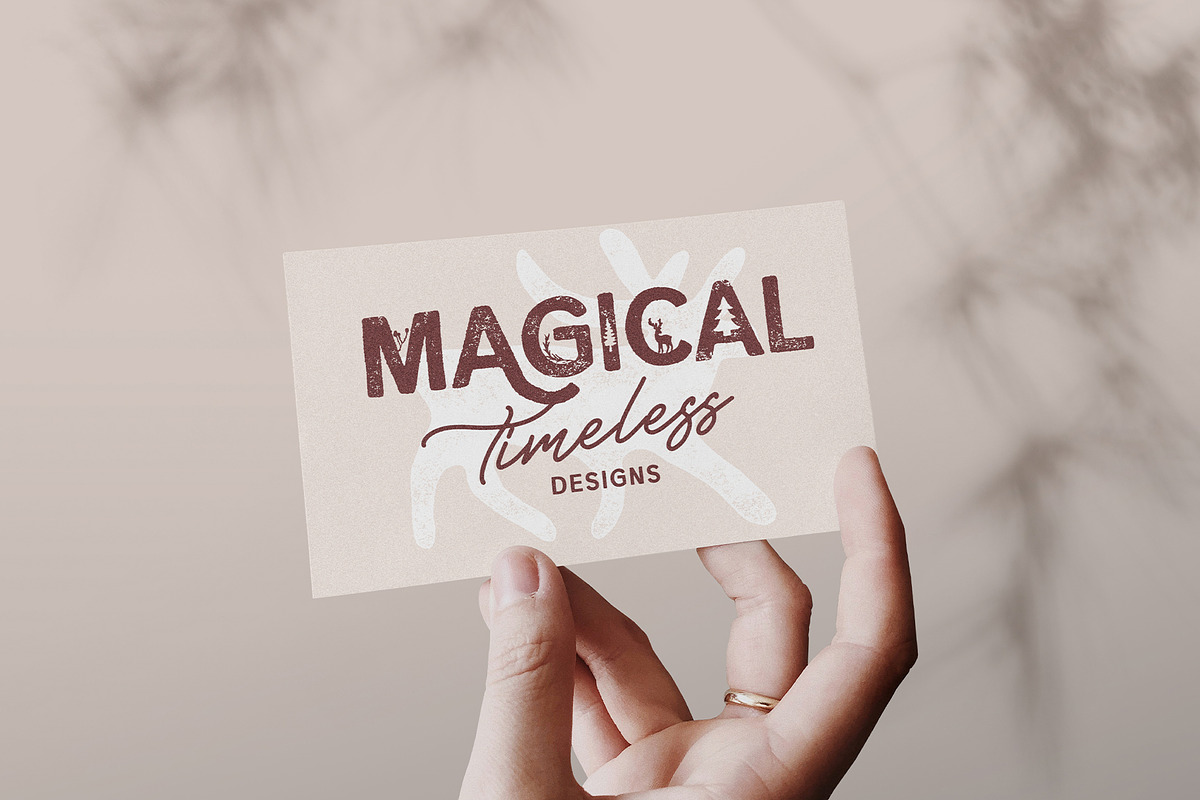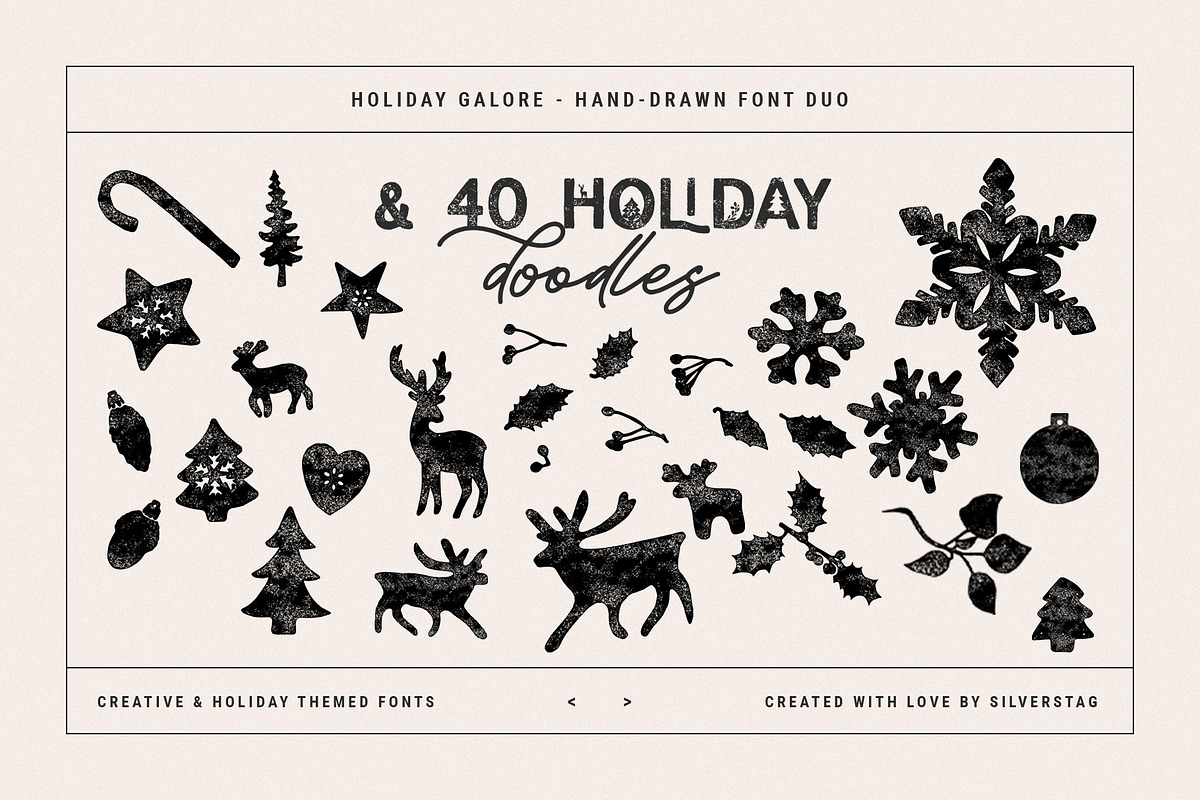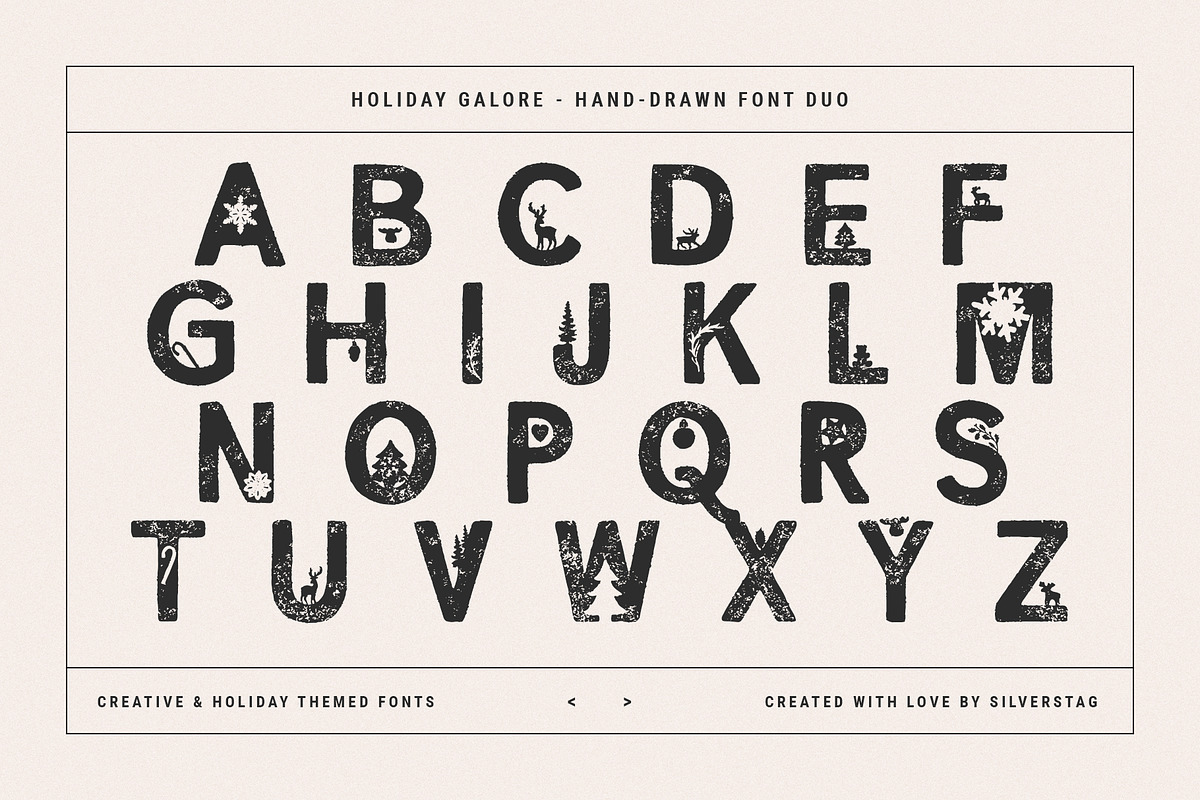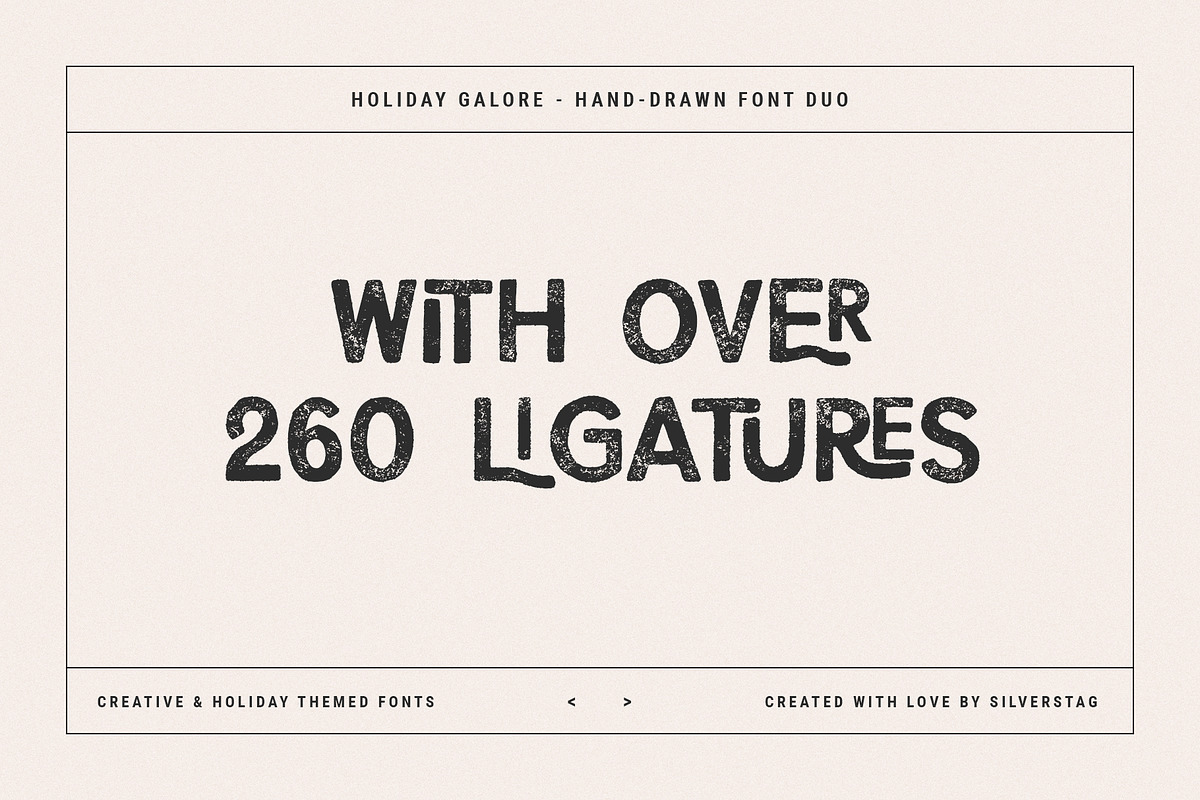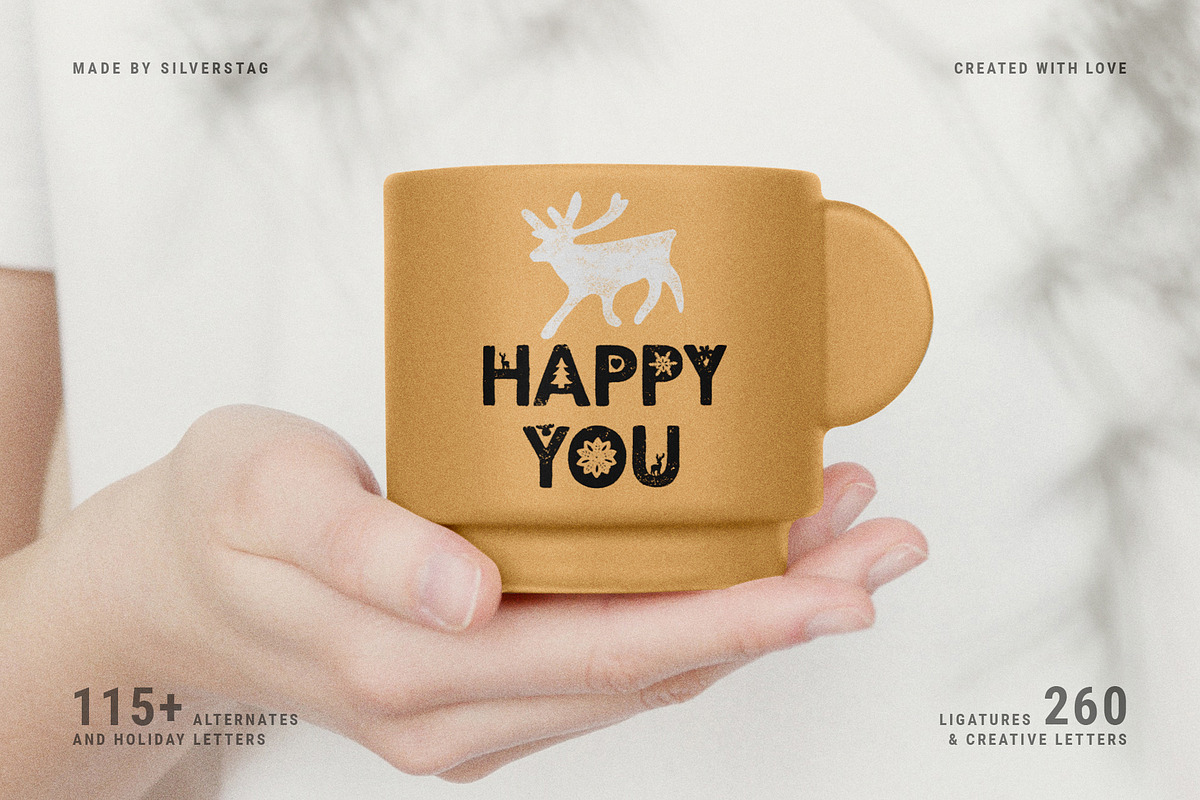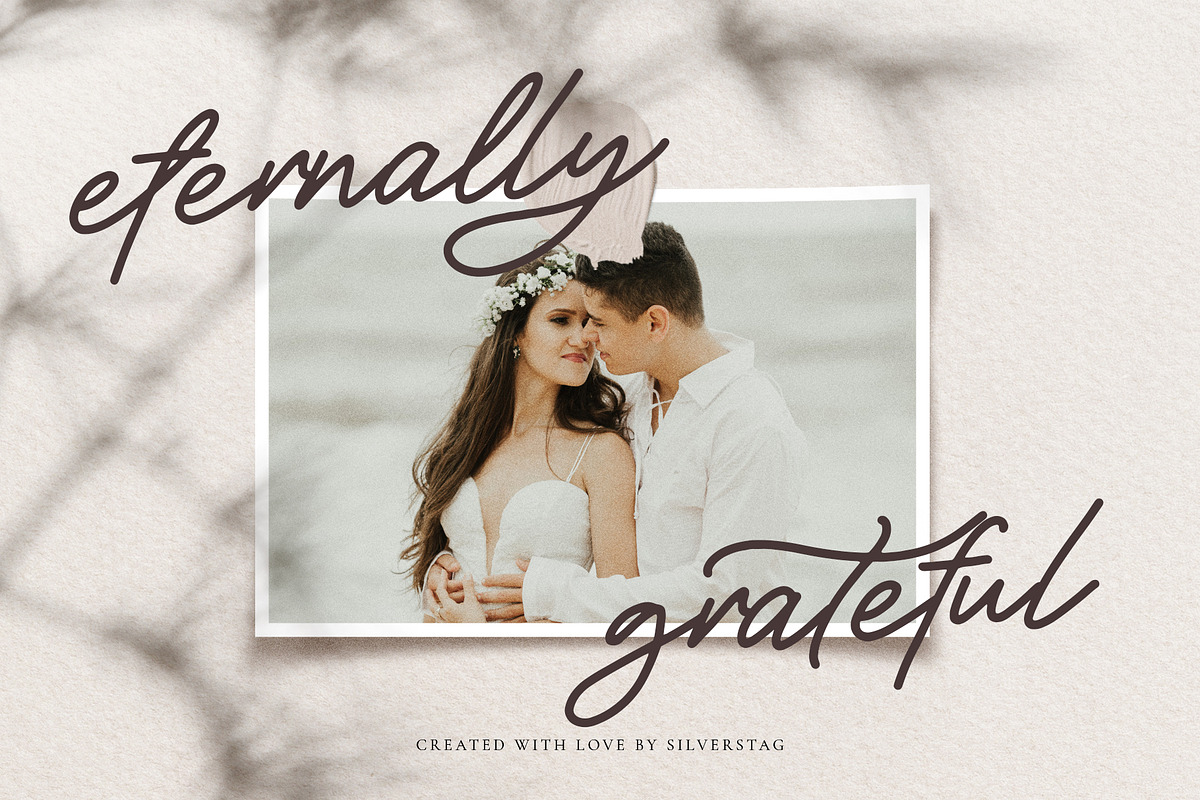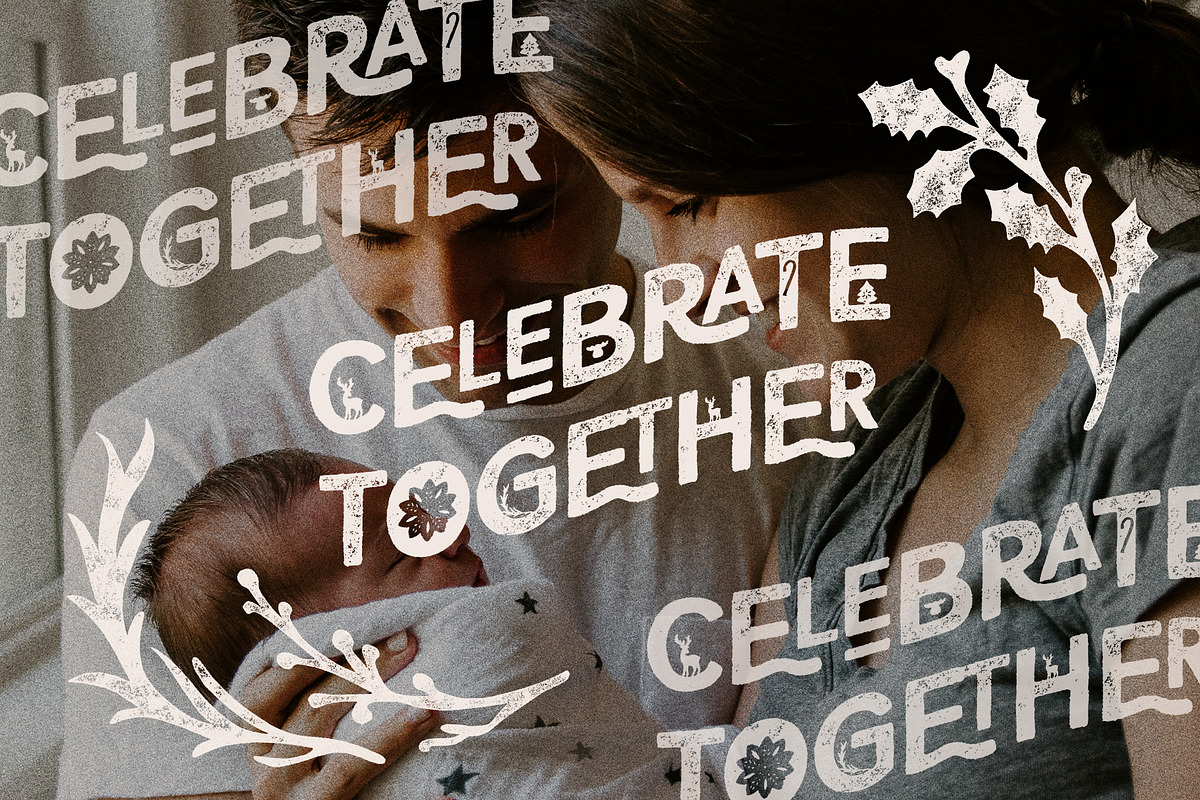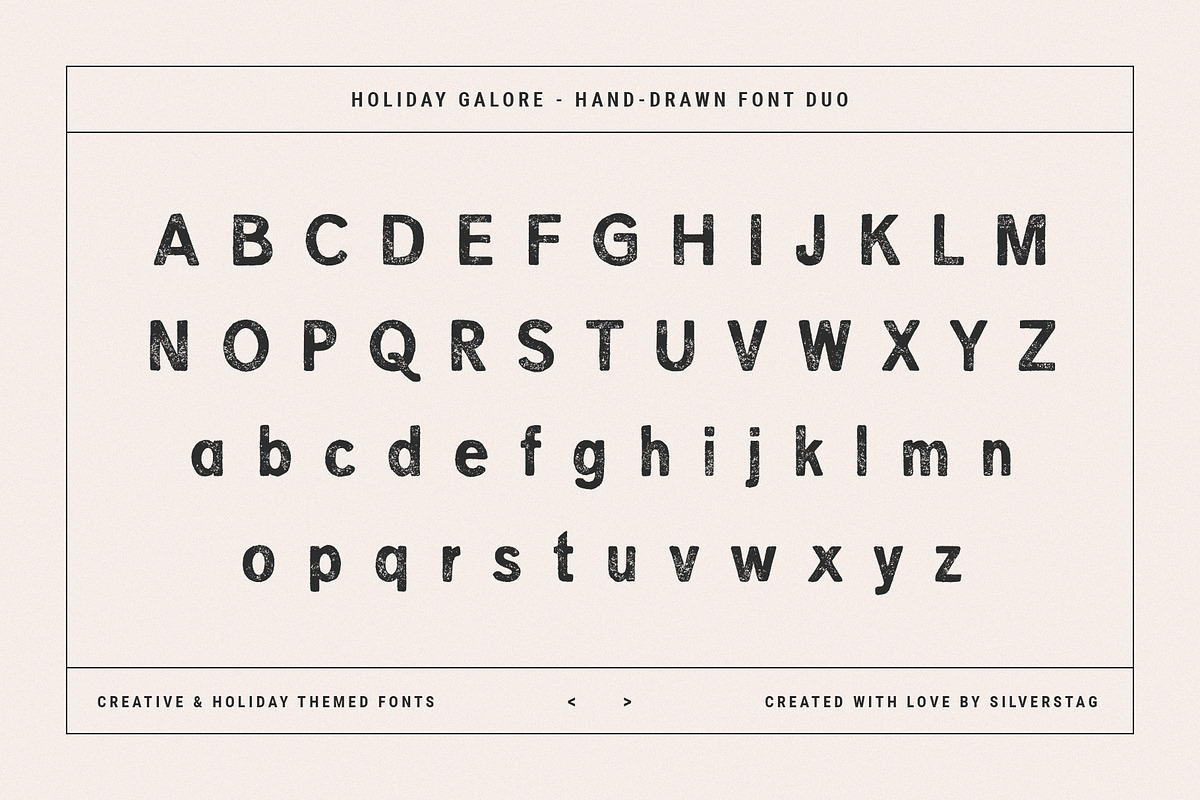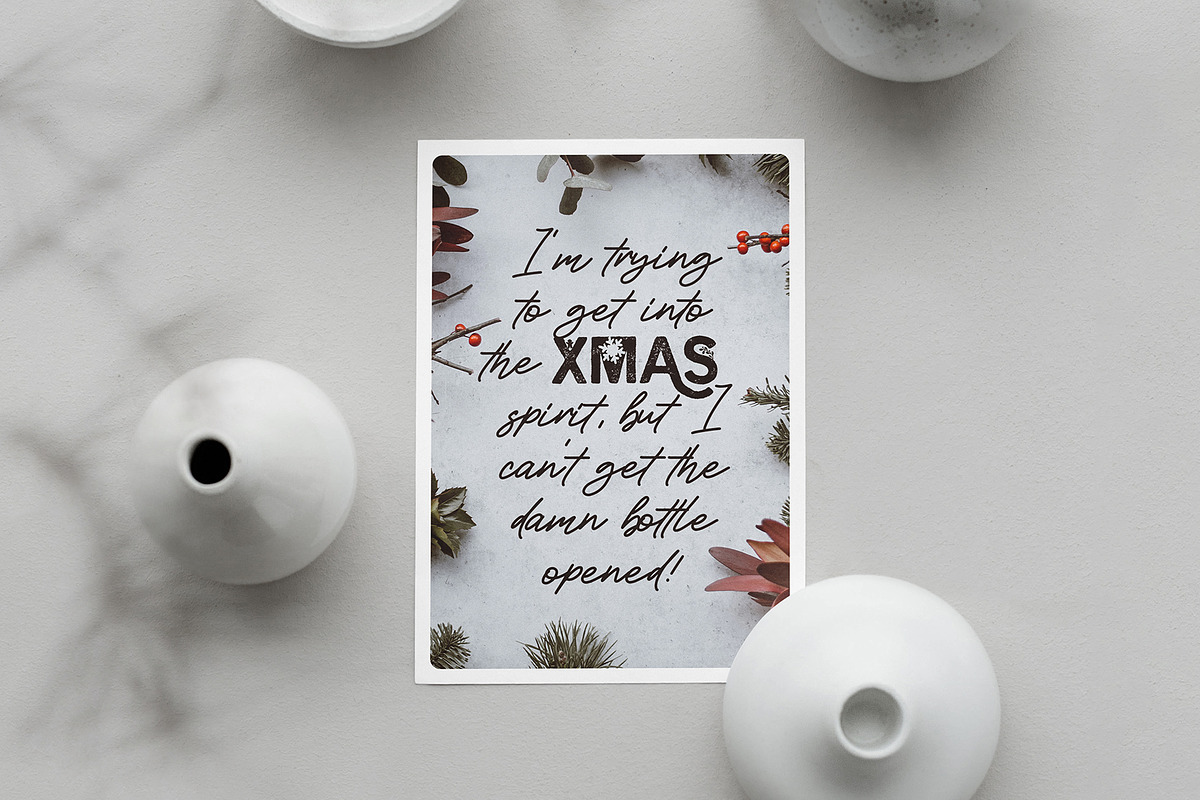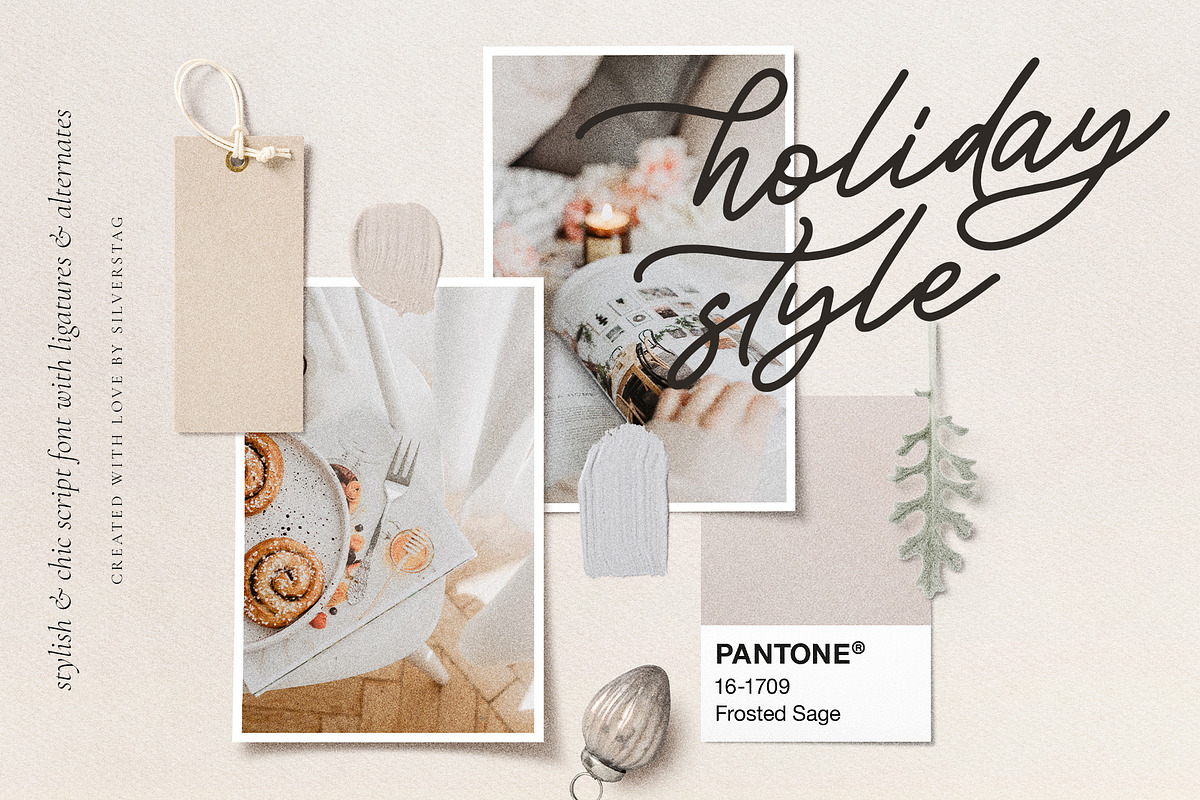
Holiday Galore - Hand-Drawn Font Duo
Hello everyone and Happy Holidays before the holidays!!! I am so happy to share my new display font duo that is 100% unique and different from anything you've seen. As you can see in the screenshots Holiday Galore is a hand-drawn holiday themed font duo that includes over 115 alternates, 260 ligatures and 40 hand drawn doodles for all your holiday-themed projects.
I have been drawing these letters for quite some time and I am super proud to offer you 4 fonts in this pack. The main holiday inspired sans comes in three different versions, regular, vintage and outlined and it has some creative alternates that include snowflakes, Christmas threes, deers, branches, all your holiday favourite images. And it is accompanied with a hand drawn script font that will make all your designs unique and distinctive.
But that is not all, the font pack includes 40 hand drawn doodles in Adobe Illustrator & Adobe Photoshop format. All the doodles are also available in their regular, vintage and outlined form.
Whether you have a client that needs a new chic logo, or you're designing your social media posts. Maybe you're preparing your wedding mood board, stationery, invitations, Holiday Galore font duo is just perfect for all of that and more. Check out the photos I have prepared for you to see what you can do with it and happy creating!
- Over 115 Alternate Letters Across Both Fonts
- Over 260 Ligatures Across Both Fonts
- Lowercase and Uppercase letters